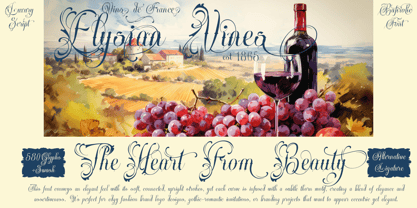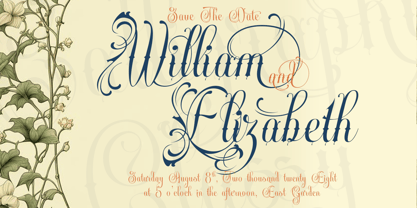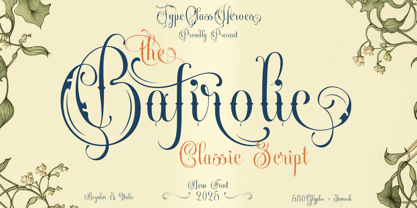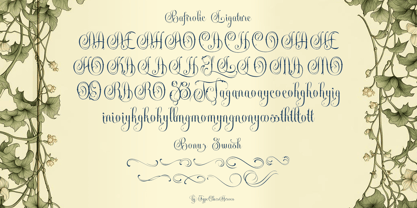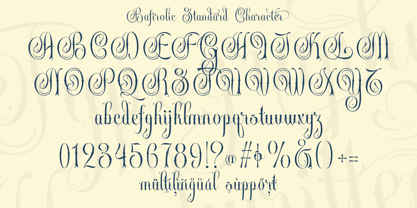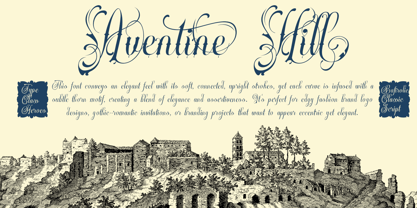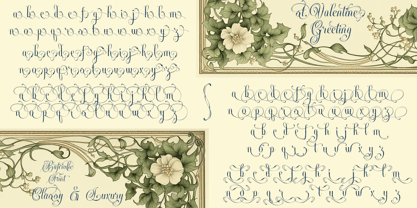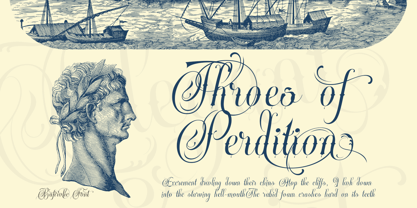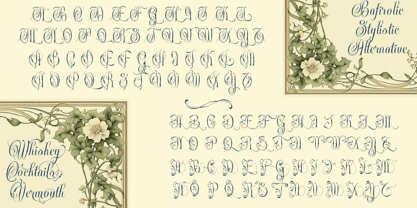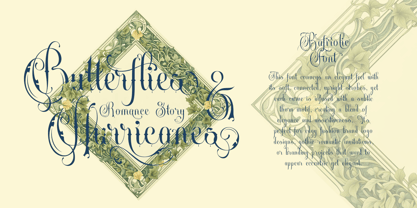
Bafirolic
by TypeClassHeroes
The Bafirolic Font Family was designed by Suandana ipandemade and published by TypeClassHeroes. Bafirolic contains 2 styles and family package options. More about this family
Introducing Bafirolic Classic Script, This font conveys an elegant feel with its soft, connected, upright strokes, yet each curve is infused with a subtle thorn motif, creating a blend of elegance and assertiveness. This font is perfectly made to be a logo, and the other various formal forms such as invitations, labels, logos, magazines, books cover, greeting cards, packaging, make up, novels, labels or whether you’re creating digital content or printed materials.